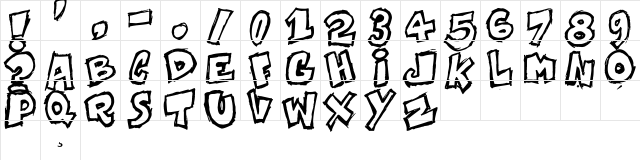
Complete Komikoz Regular glyph index. Displaying only characters natively supported by Komikoz Regular font.
Komikoz is a composed and adaptable typeface that performs quietly and consistently across a wide range of design contexts.